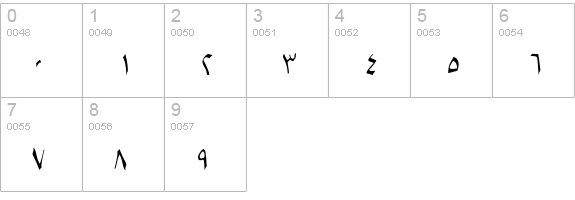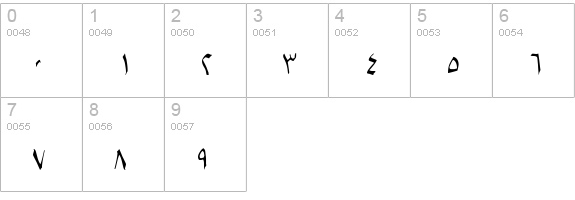
B Setareh Font Details
B Setareh font is a beautifully crafted typeface that exudes elegance and sophistication. With its graceful curves and intricate details, this font is perfect for adding a touch of luxury to your designs. Whether you are creating invitations, branding materials, or editorial content, B Setareh font will bring a sense of refinement to your projects. What makes B Setareh font even more appealing is that it is available for free download at FontsMarket.com. This means that you can easily access this stunning font and use it in your work without any cost. Don't miss out on the opportunity to elevate your designs with the timeless charm of B Setareh font. Download it now and add a touch of class to your projects.